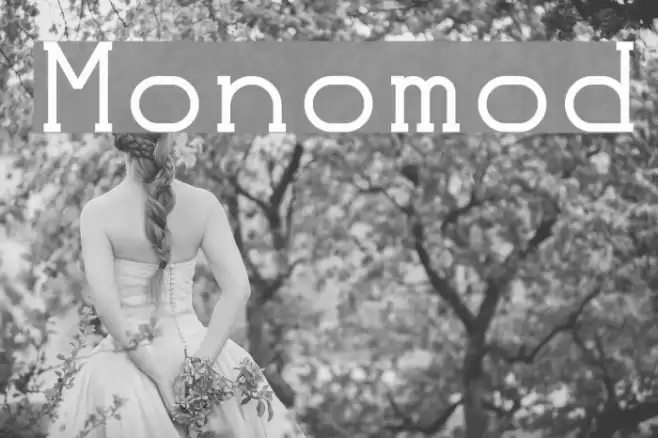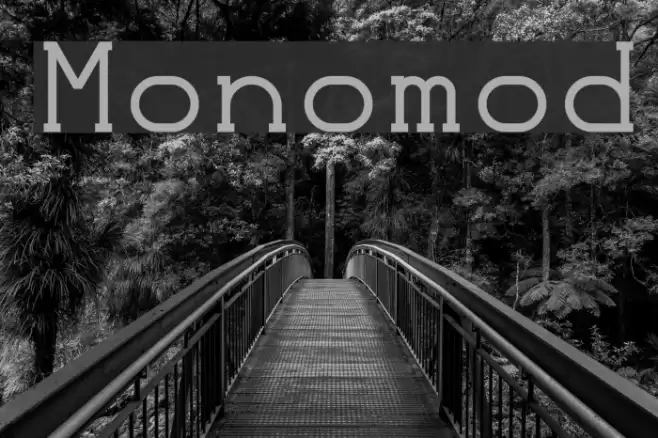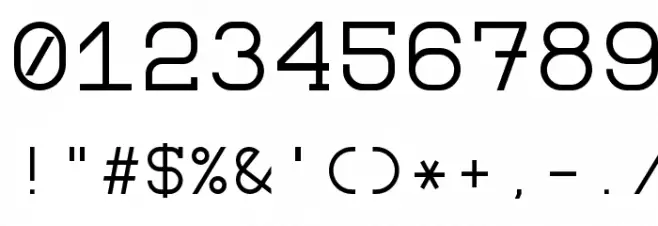
Monomod Font
Monomod Description
This font features a monospaced design with a clean and modern aesthetic. Each character is evenly spaced, providing a uniform appearance that is ideal for coding and technical documents. The font has a geometric structure with rounded edges, giving it a friendly and approachable feel. The uppercase and lowercase letters maintain a consistent height, enhancing readability. Numbers are clear and distinct, making them suitable for data presentation. The special characters are well-defined, ensuring clarity in various contexts.
A modern, monospaced font with geometric shapes and rounded edges from Basic fonts.
- Proposed Projects: Ideal for coding environments, technical documentation, data presentation, and minimalist design projects.
- Use Case: Coding, Technical documents, Data presentation